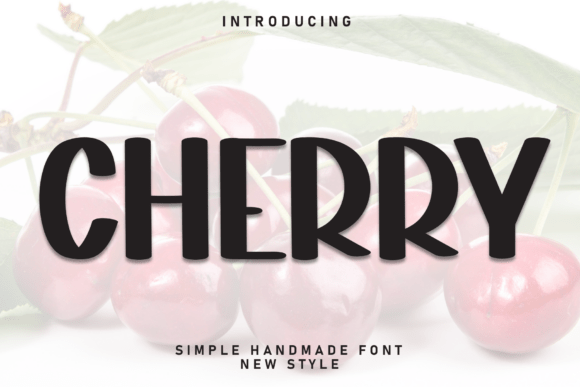
The Sweet Spot: How Cherry Font Became My Go-To for Friendly Designs
I still remember the design project that led me to discover Cherry Font. I was working on a branding project for a local bakery, and I needed a font that would convey warmth, friendliness, and approachability. I had spent hours scouring through font libraries, but nothing seemed quite right. That was when I stumbled upon Cherry Font, and it was love at first sight! ✨
An Honest Review of Cherry Font
- ✨ Simple yet elegant design with clean lines
- ✅ Perfect for logos, quotes, social media posts, and more
- ✅ Friendly and approachable feel that’s hard to achieve with fonts
While I adore Cherry Font, it’s not perfect. Here are a few things to keep in mind:
- ⚠️ Limited character set: Cherry Font might not have all the special characters you need for a specific project.
- 🤔 Not ideal for body text: While it’s legible, Cherry Font is better suited for headlines, titles, or short paragraphs.
The Story Behind Cherry Font
Cherry Font was designed by a talented type designer who wanted to create a font that would evoke a sense of warmth and friendliness. Inspired by handwritten notes and natural textures, Cherry Font was crafted to be simple, elegant, and approachable.
| Font Name | Cherry Font |
| Author | Misterletter.co |
Q: What is Cherry Font best used for?
A: Cherry Font is perfect for logos, quotes, social media posts, or anything that needs a friendly and straightforward touch.
Q: Is Cherry Font suitable for body text?
A: While Cherry Font is legible, it’s better suited for headlines, titles, or short paragraphs. For longer blocks of text, consider using a font specifically designed for body text.
Q: Is Cherry Font available in different languages?
A: Cherry Font may not have an extensive character set, but it’s available in a range of languages. Check with the font foundry for specific language support.